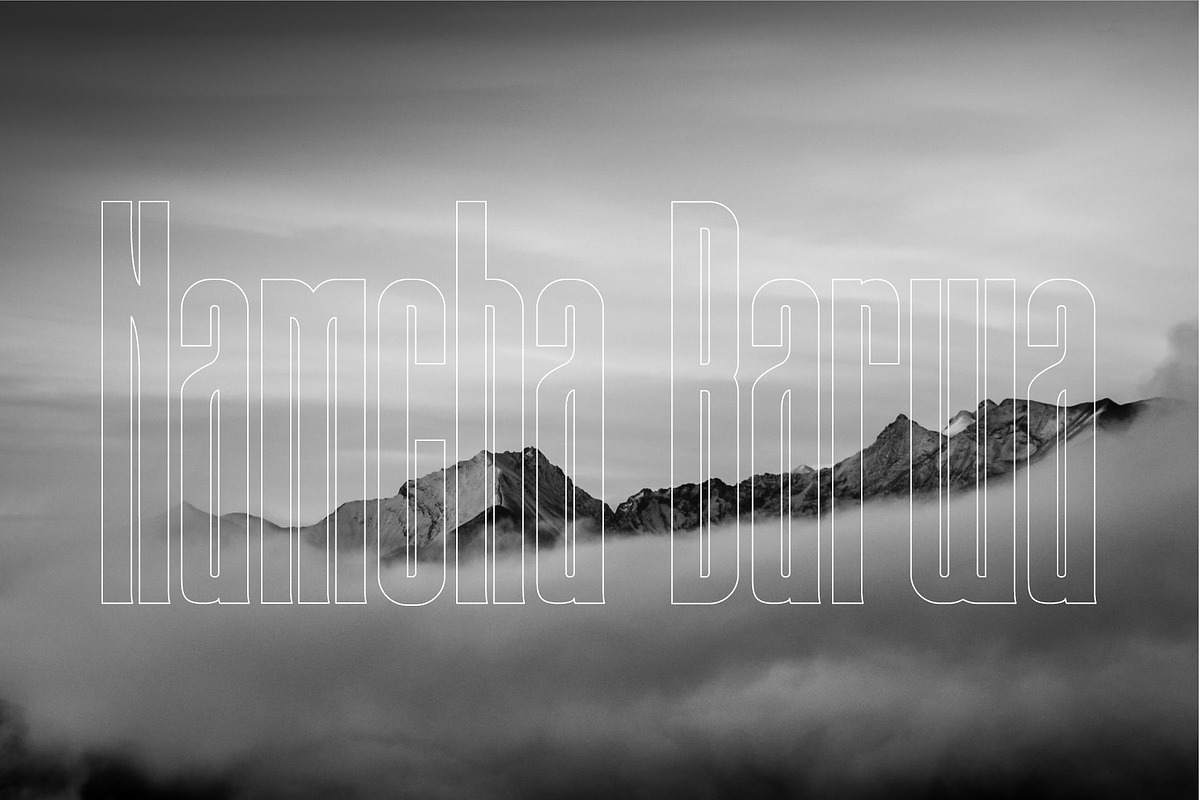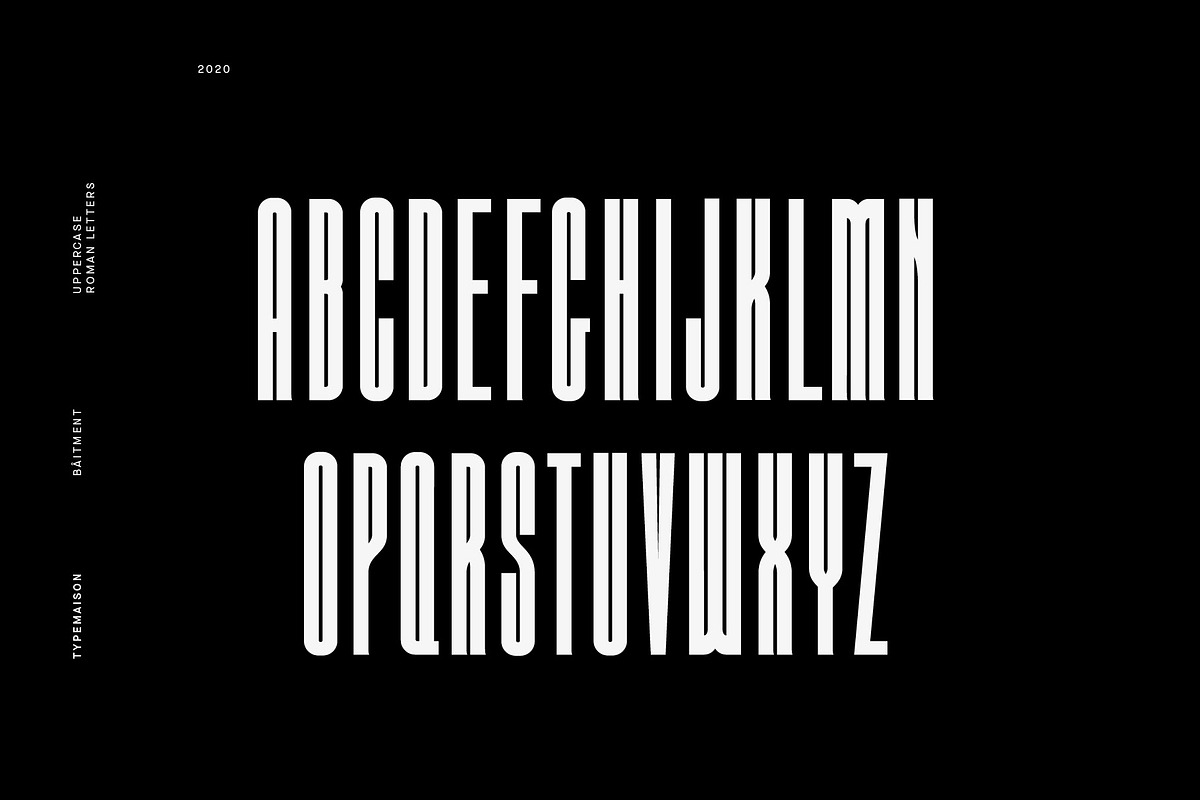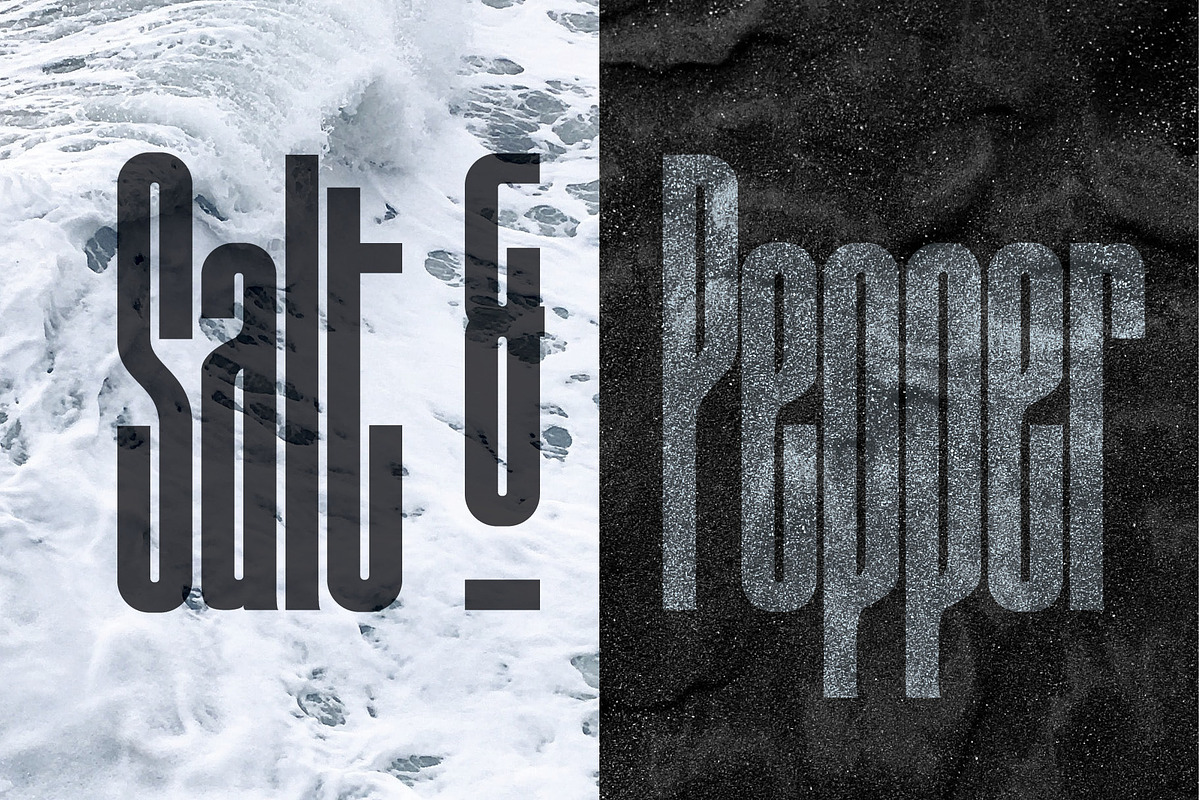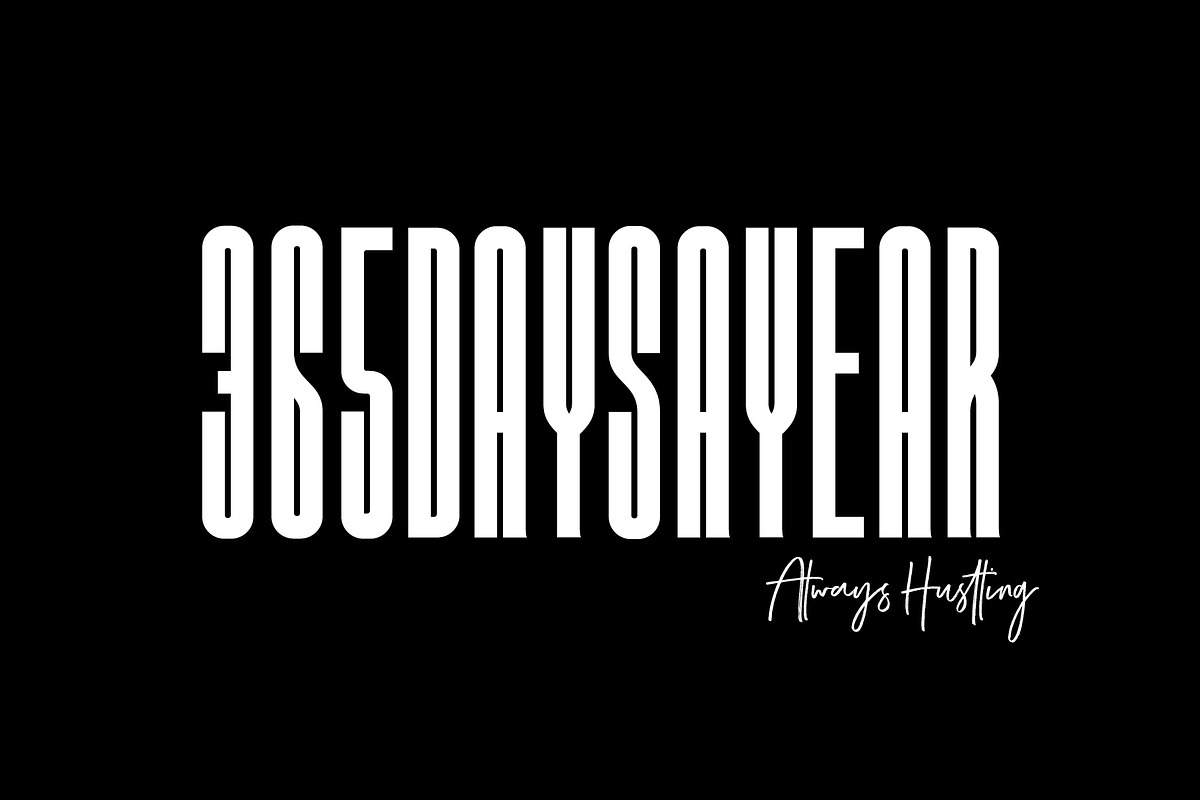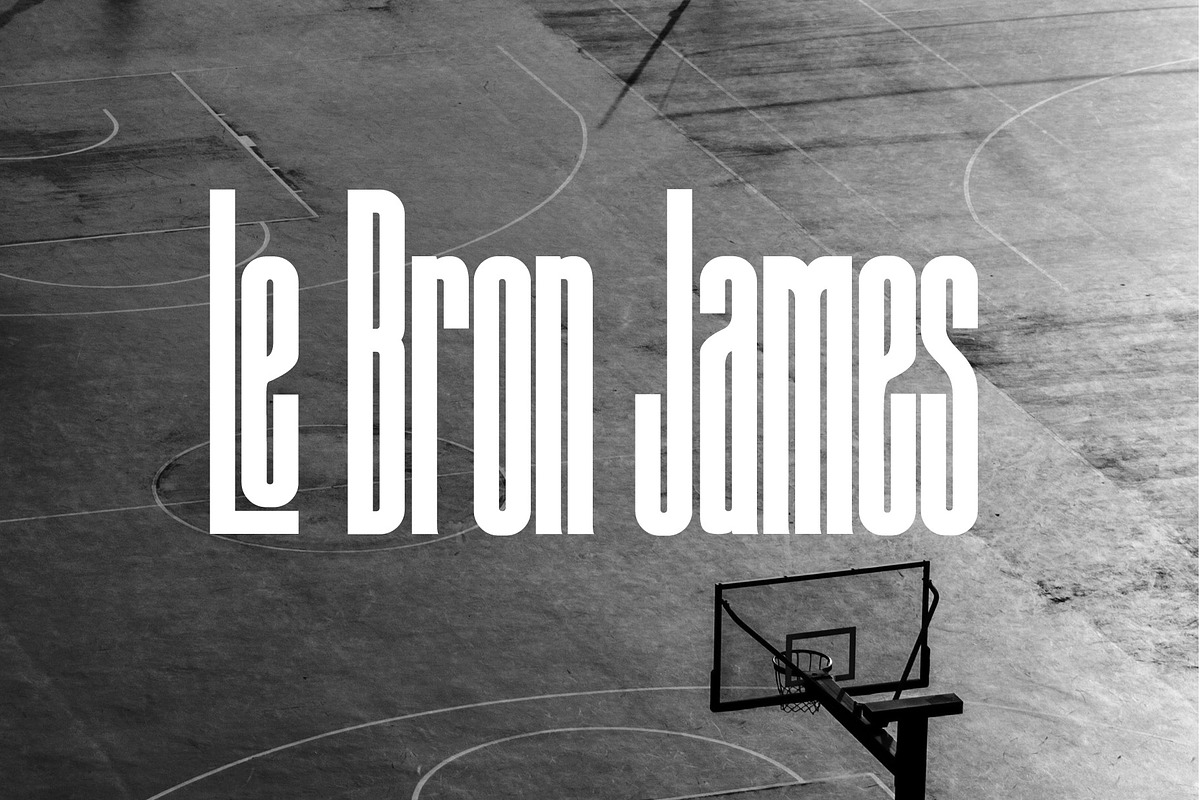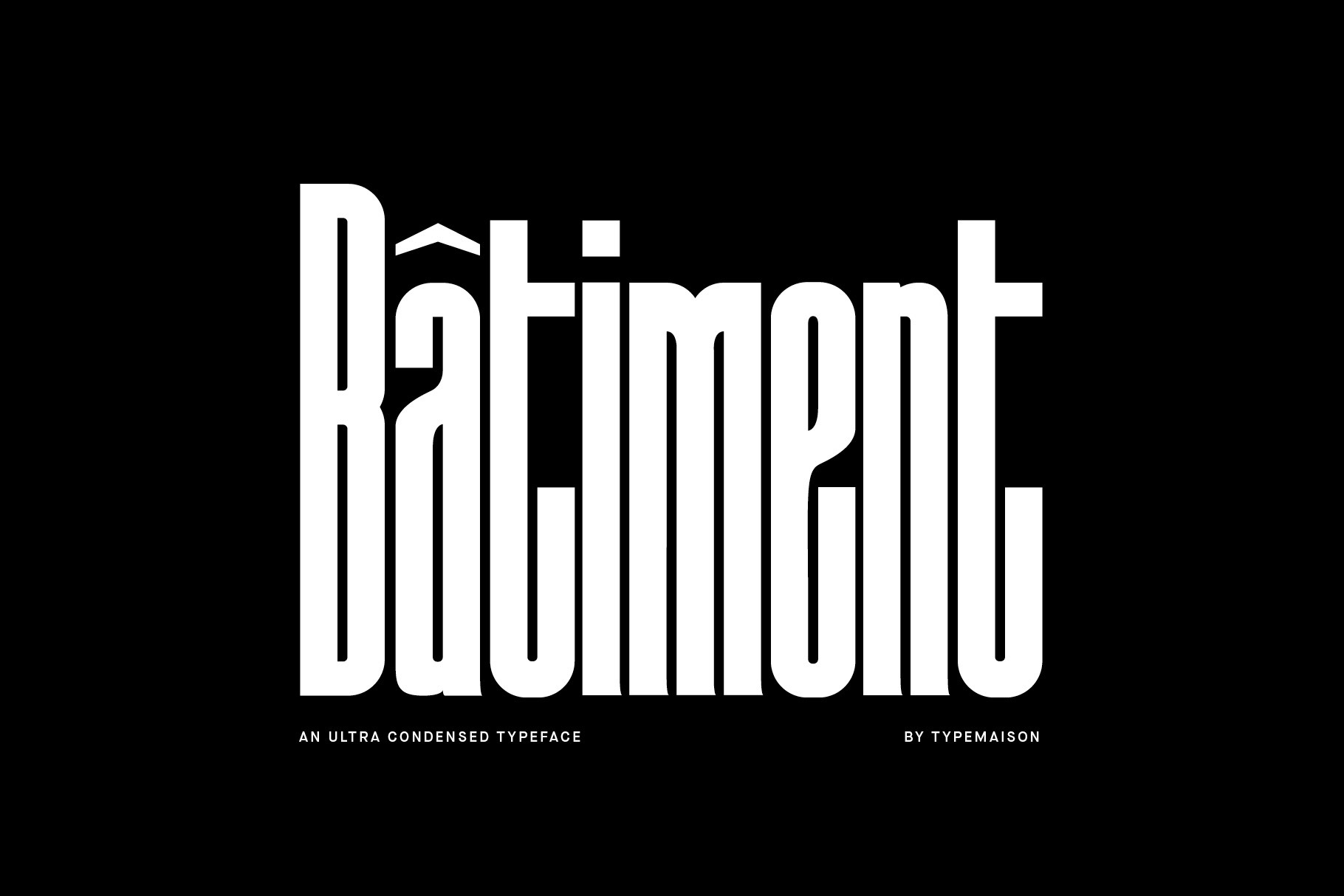
Batiment - Ultra Condensed Font
Batiment is designed with extreme height for an ultra condensed font. Perfect for headlines or bold statements, this typeface supports many languages and includes letter alternates and ligatures for customisation.